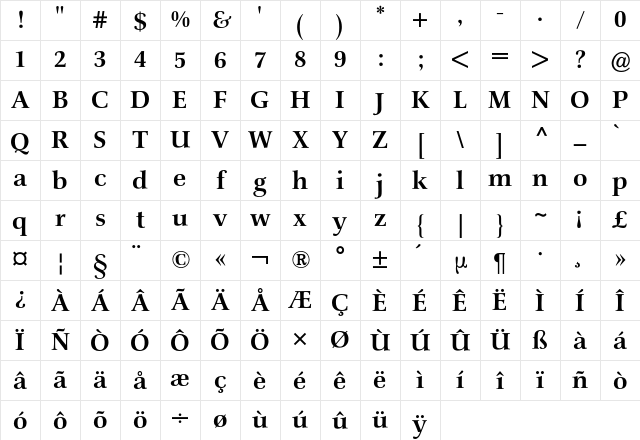
Schneider-Antiqua BQ Regular
Design Context for Schneider-Antiqua BQ
Schneider-Antiqua BQ is a composed and adaptable typeface that performs quietly and consistently across a wide range of design contexts.
Pro Tip: Use Schneider-Antiqua BQ in both headline and body roles to test its range before committing to a single application.